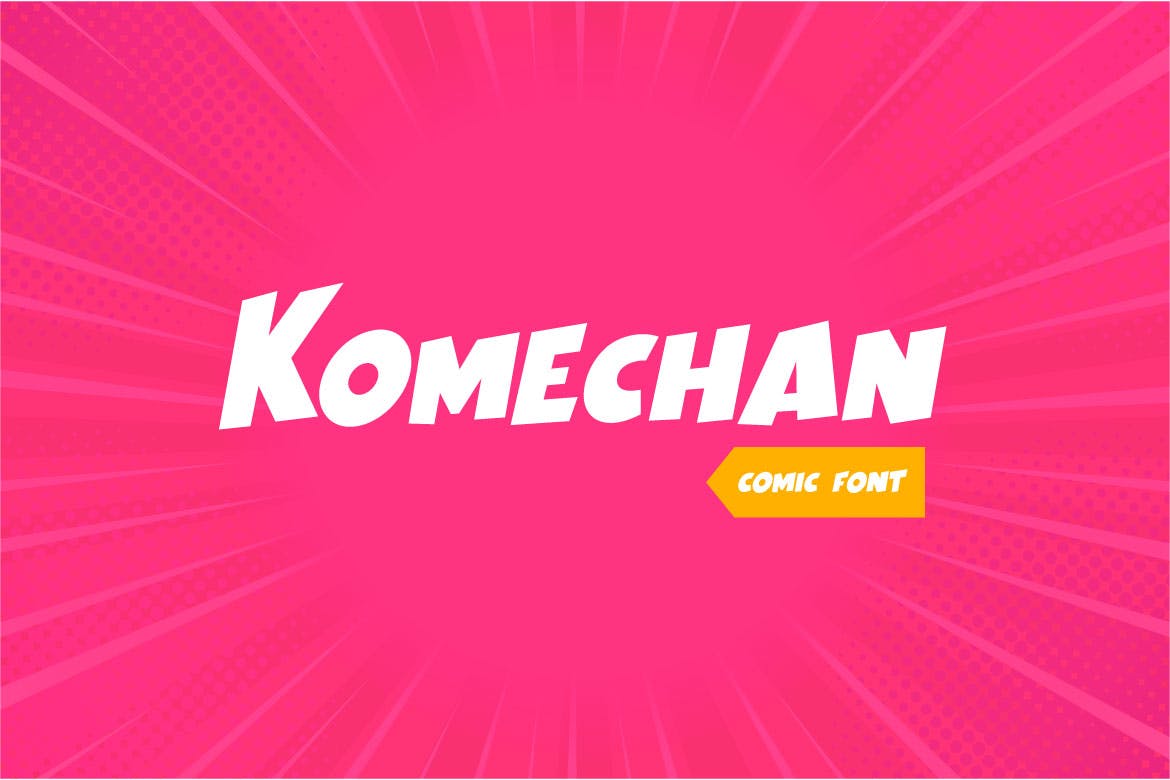
Komechan – Modern Comic Font
Komechan is a modern comic font designed to bring a playful and contemporary touch to any project. With its normal spacing and versatility in size, it enhances visual appeal while maintaining readability. Ideal for both digital and print applications, this font adds character and creativity, making it perfect for comics, posters, and casual branding.